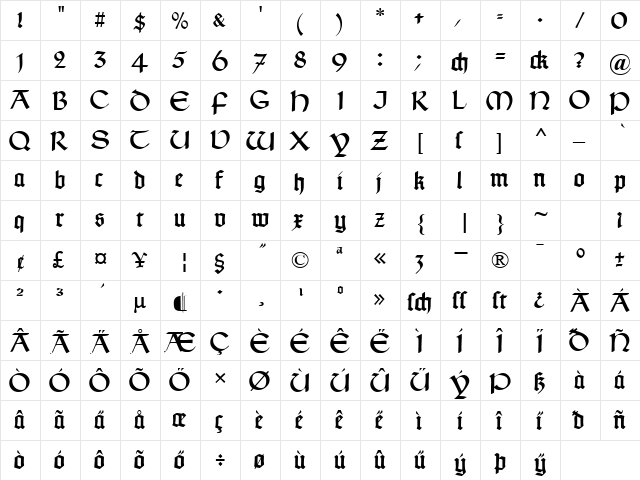
Typographer Uncialgotisch Regular
| Designer | Dieter Steffmann |
Design Context for Typographer Uncialgotisch Typeface
Typographer Uncialgotisch is a composed and adaptable typeface that performs quietly and consistently across a wide range of design contexts.